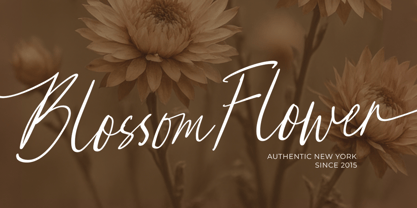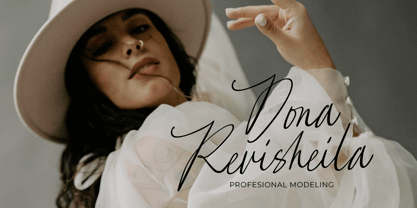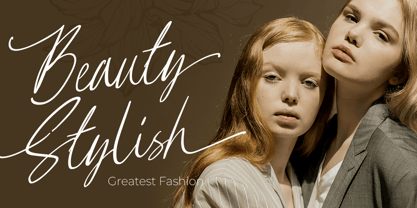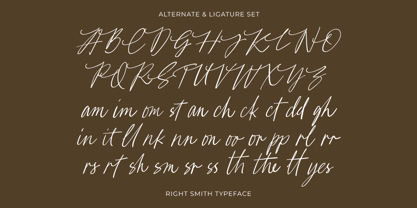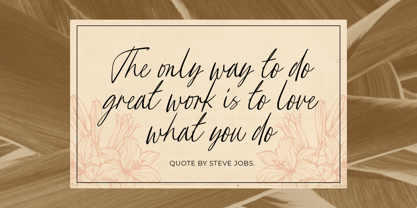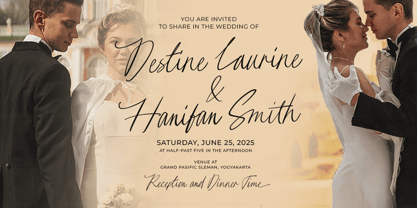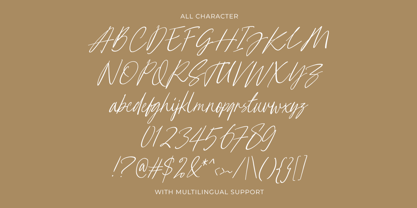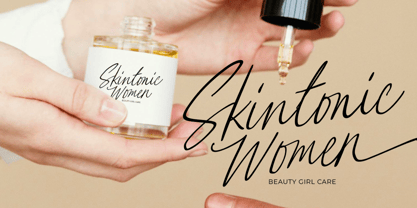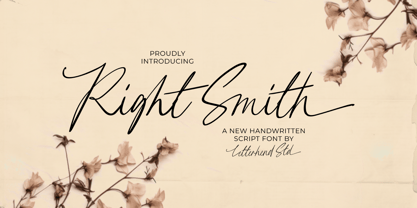
Right Smith
Right Smith is a chic and elegant handwritten script font with a natural flow. Its smooth, long swashes and slightly casual strokes make it perfect for modern branding, wedding invitations, logos, and social media quotes. Right Smith brings a touch of effortless sophistication to every design, making your message feel personal yet polished.